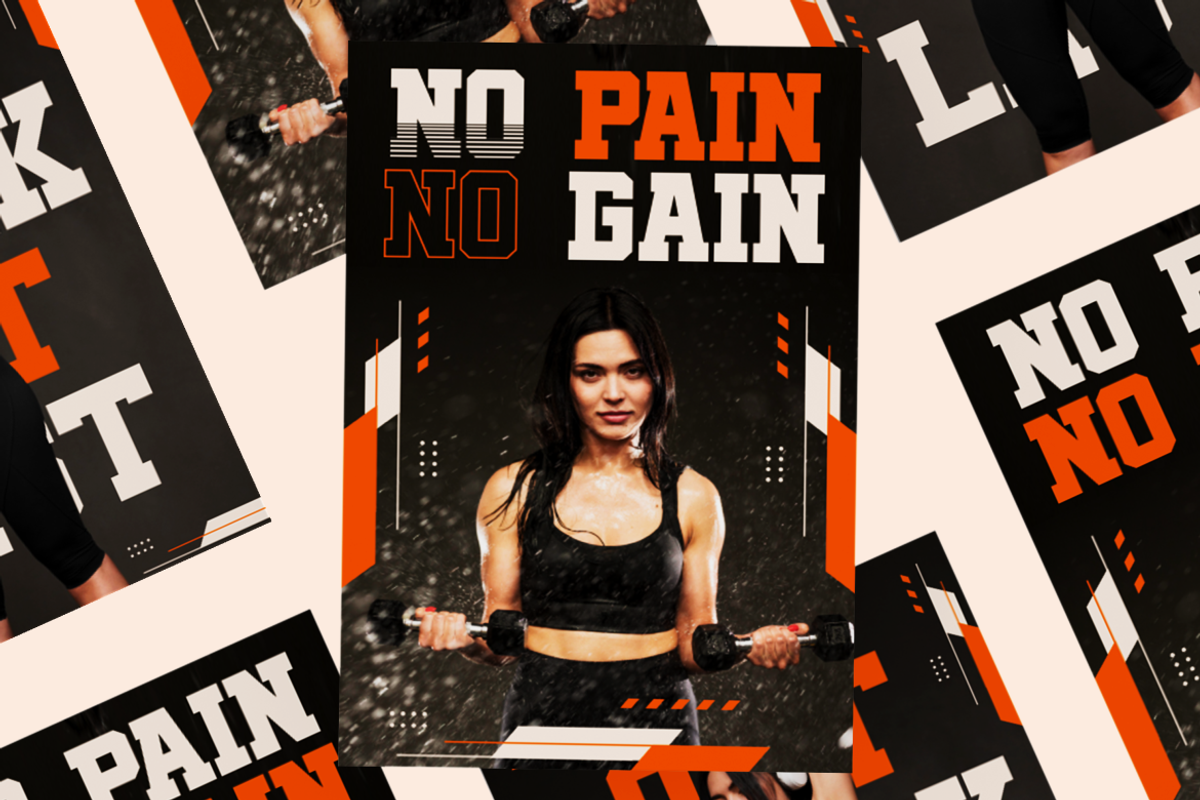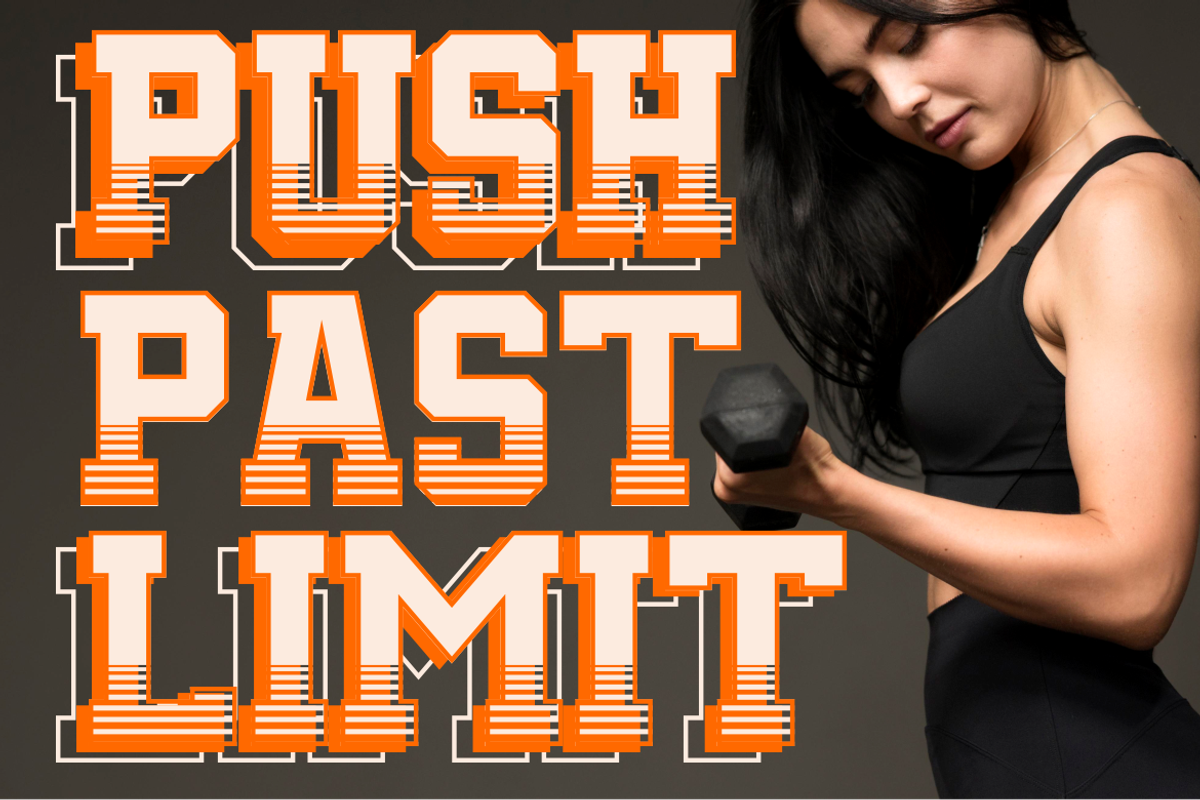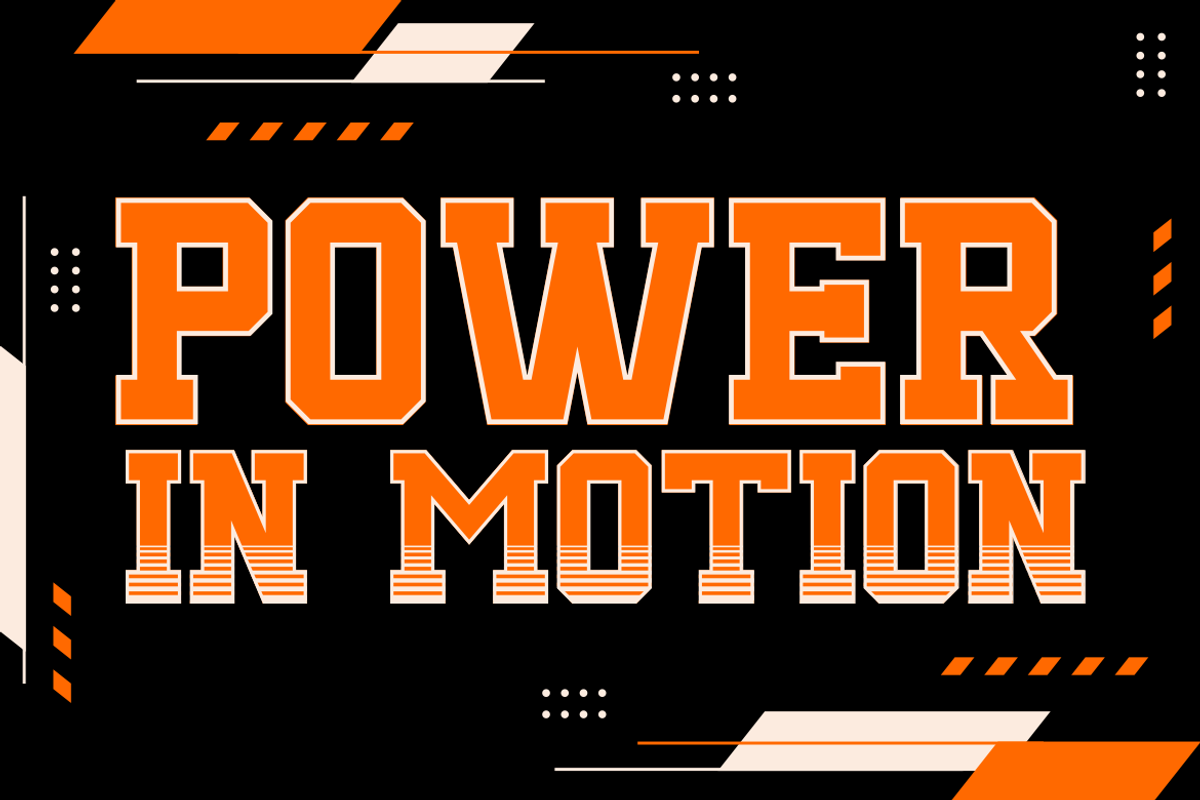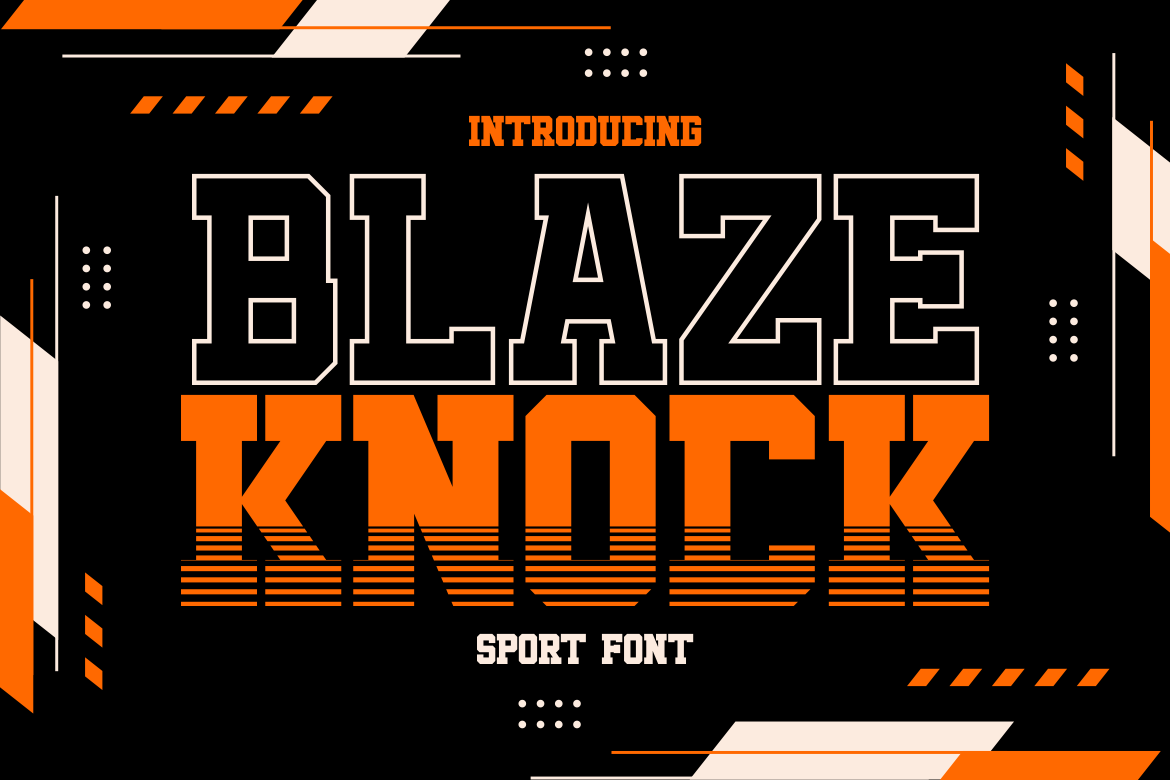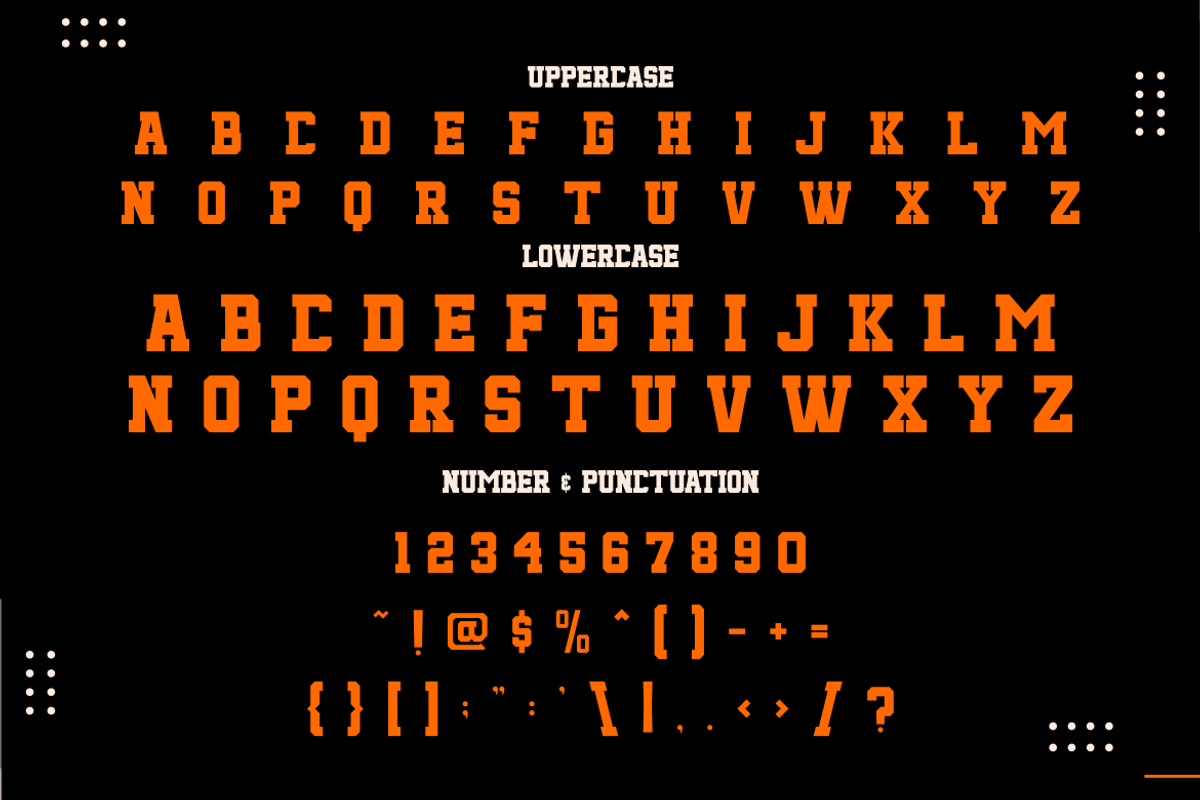
Blaze Knock Sport Font
Blaze Knock is a powerhouse sport font that fuses vintage grit with bold modern edge. Designed with blocky, square serifs and dynamic all-caps characters, this typeface makes a bold statement in every design. The unique horizontal line treatment at the base of selected glyphs conveys energy and momentum—perfectly suited for fitness branding, championship posters, or action-packed movie titles. Each character stands tall and powerful, capturing the spirit of competition, endurance, and triumph. The outline and inline shadowed variations add further versatility for layered visuals or attention-grabbing contrast.
Whether you're crafting a gym campaign, athletic apparel brand, or motivational workout poster, Blaze Knock delivers visual impact and typographic intensity. It’s ideal for headline typography, sports product packaging, powerful logo designs, and editorial layouts that demand presence. Its classic slab structure makes it readable from afar, while its stylistic alternates and punctuation make it suitable for both digital and print formats. Blaze Knock is more than just a font—it’s a statement of strength, resilience, and speed.